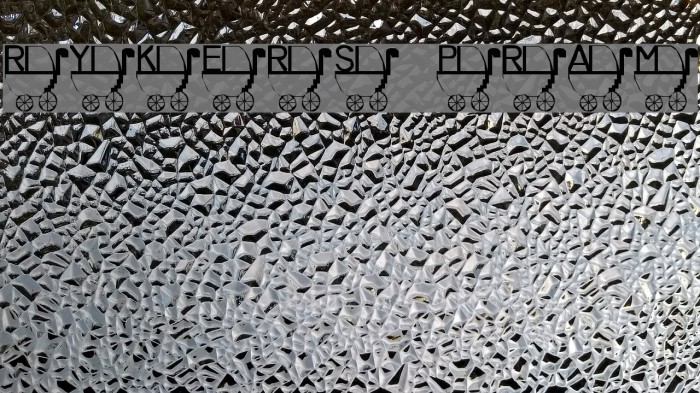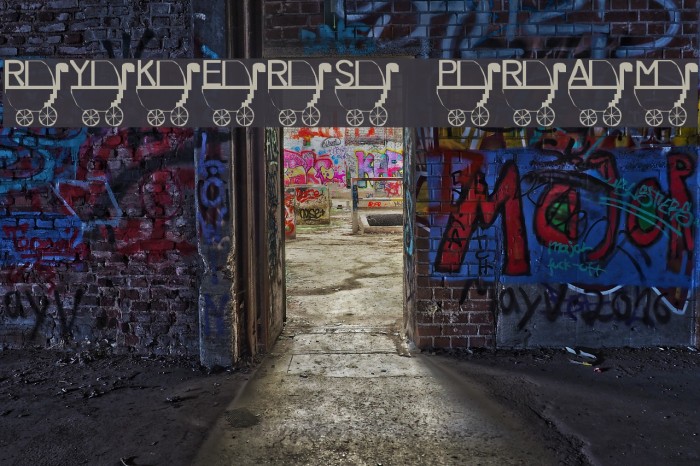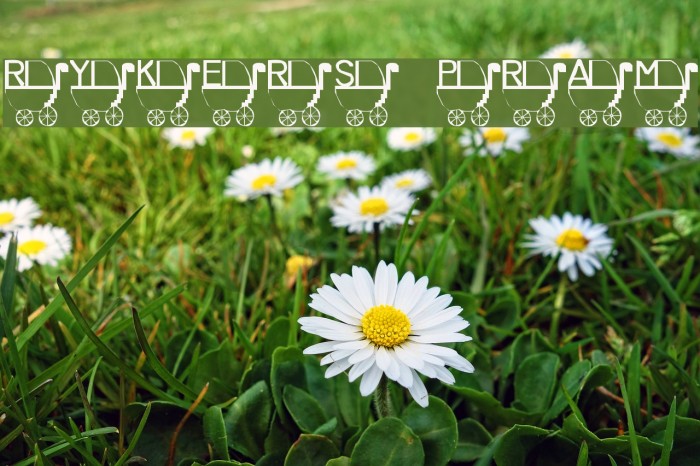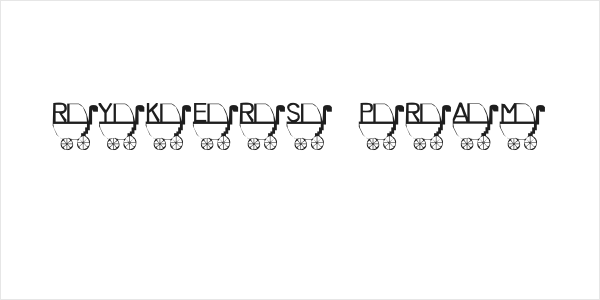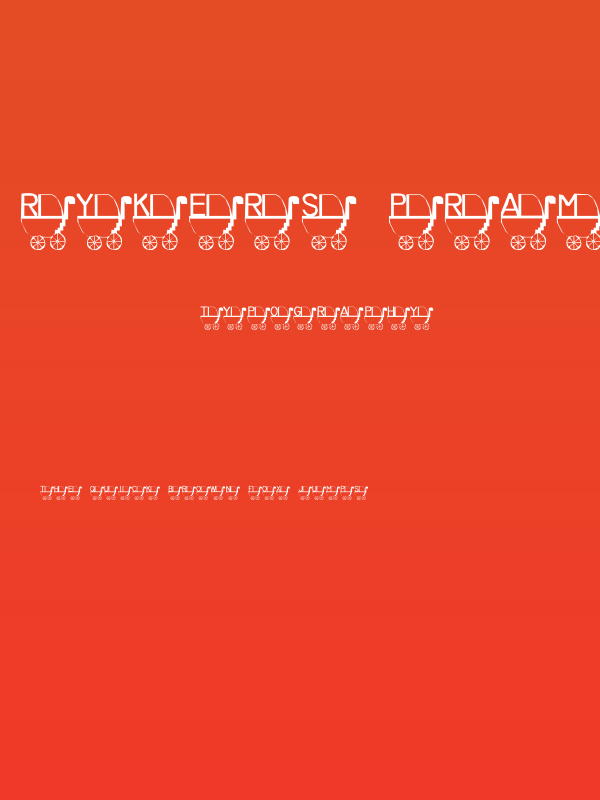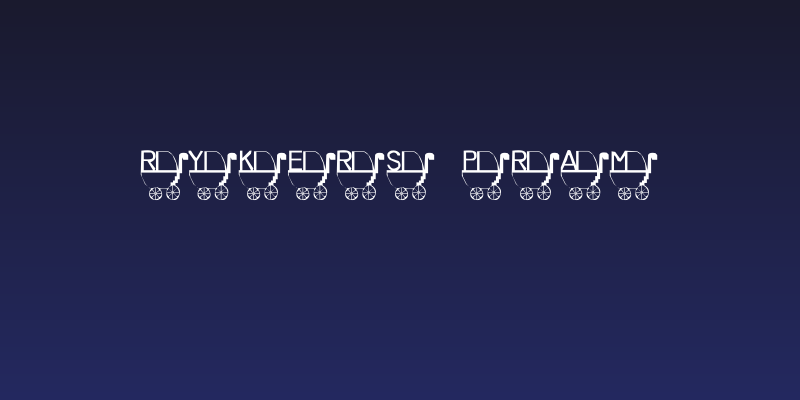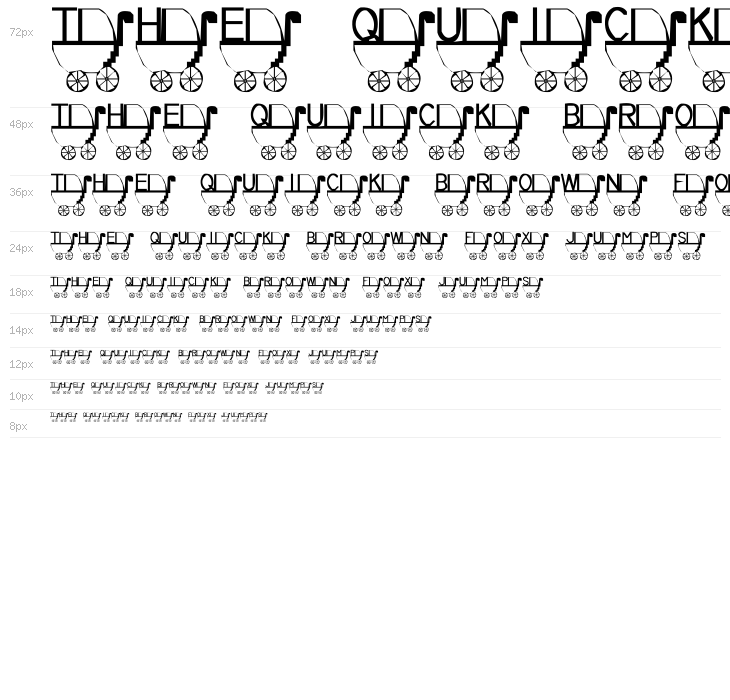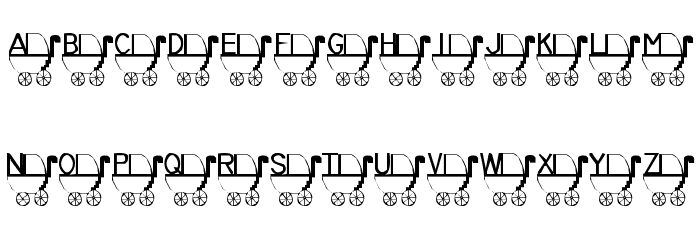
Rykers Pram Font
Rykers Pram Description
This font features a playful and whimsical design where each letter is creatively integrated into the shape of a baby stroller. The unique style combines the functionality of typography with the charm of a child-like theme, making it ideal for projects that require a touch of innocence and fun. The letters are bold and easily recognizable, with each character maintaining a consistent stroller motif. The font's design is both decorative and functional, offering a distinctive look that stands out in any application.
| Proposed Projects | Ideal for children's books, baby product branding, nursery decor, and playful event invitations. |